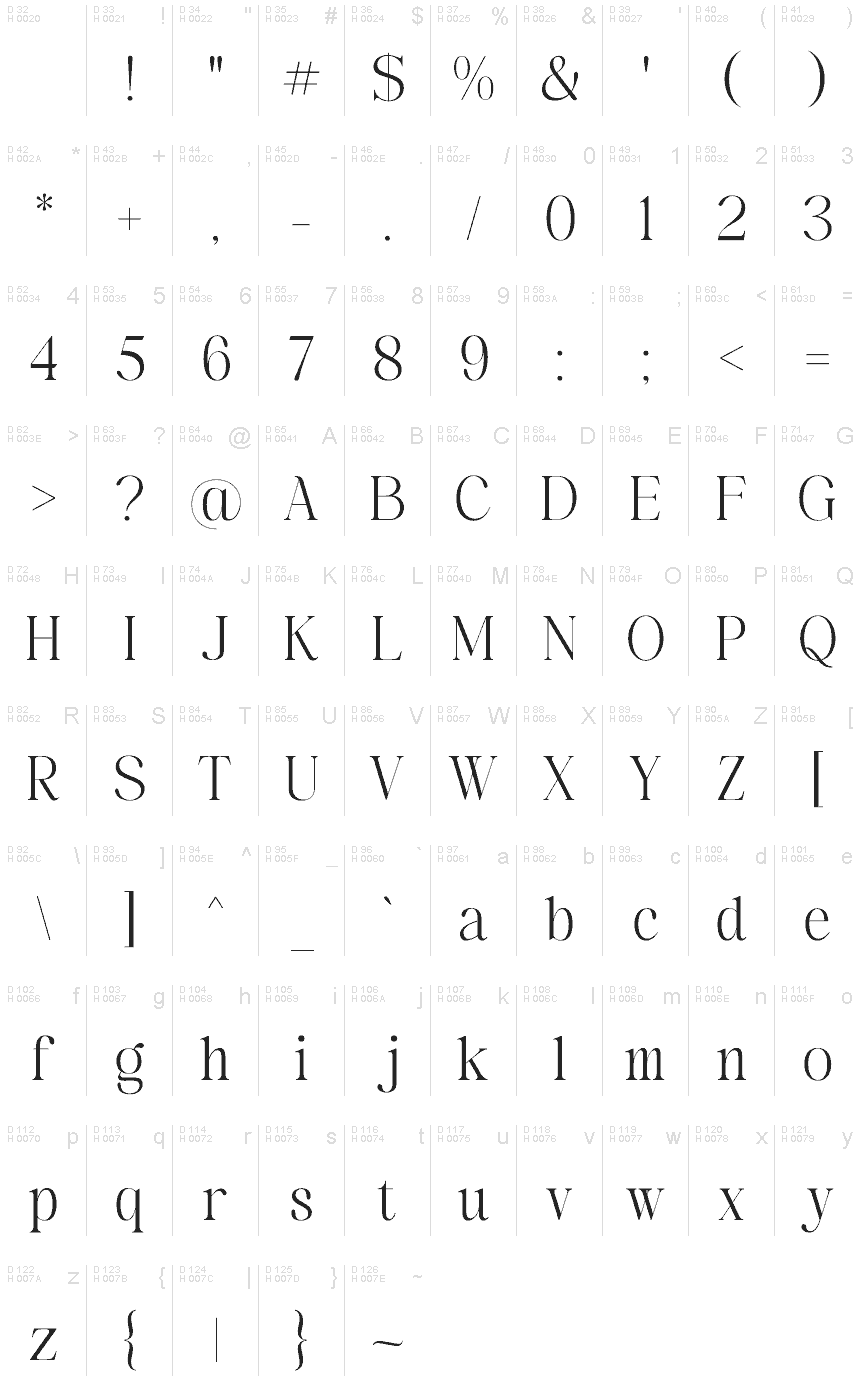
Viagram
Viagram font from Storytype Studio is an elegant free serif font with refined proportions and timeless appeal. It is condensed with sophisticated classic serifs that when combined offer a truly professional and classy visual. Clean, perfectly shaped, and incredibly versatile; this typeface offers endless possibilities.
Use Viagram for branding logotypes, magazine covers, advertising texts, headlines of editorials, accessory package designs, invitation cards for special occasions as well as labels of premium products.